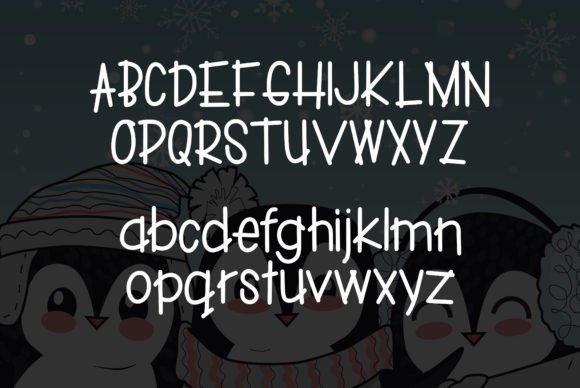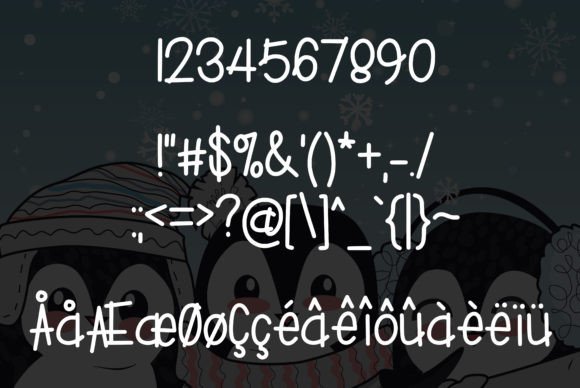
Introduction to Penguin Grins Font
As you’re brainstorming ideas for your next creative project, have you ever wished for a design element that captures the magic of the holiday season? The twinkling lights, the cozy atmosphere, and the joy of sharing with loved ones – it’s a time of year that’s full of whimsy and wonder. And that’s exactly what the Penguin Grins Font brings to your designs: a playful, high-quality font that’s sure to put a smile on your face and add a touch of frosty fun to your winter-themed projects.
As a designer, you know how valuable a versatile and easy-to-use font can be – especially when it comes to free downloads that can elevate your designs without breaking the bank. With its transparent background and full set of numbers and special characters, the Penguin Grins Font is the perfect design resource to have in your toolkit.
Key Features of Penguin Grins Font
- This high-quality font features a unique and playful design with transparent background, allowing for seamless integration with various design elements.
- The font is available in 3 different styles: Regular, Bold, and Italic, providing users with a range of options for creative expression.
- Penguin Grins Font is designed to be highly legible, even at small font sizes, making it an ideal choice for various design applications.
Honest Review: Penguin Grins Font
I recently had the chance to work with the Penguin Grins Font, and I must say it’s been a delight to integrate into my design projects. This font is perfect for any creative project that needs a fun and playful touch.
- High-quality design with smooth lines and precise details ✨
- Perfect for titles, headings, and short paragraphs where a touch of whimsy is needed
- ⚠️ The font may not be suitable for large blocks of text, as it can become overwhelming
- ⚠️ Limited language support, which may be a concern for designers working on international projects
Overall, I’m quite impressed with the Penguin Grins Font. Its unique design and high-quality construction make it a valuable addition to any designer’s toolkit. While it may have some limitations, it’s definitely worth considering for your next creative project.
For the best results, use the Penguin Grins Font in combination with other design elements that complement its playful and quirky nature. Experiment with different font sizes and styles to add depth and visual interest to your design.
The Penguin Grins Font is ideal for designing children’s books, party invitations, and other creative projects that require a fun and playful touch. Its high-quality design and transparent background make it a versatile design resource for any project.